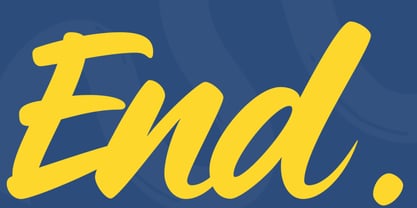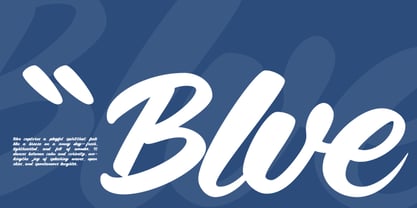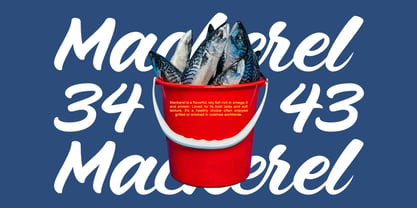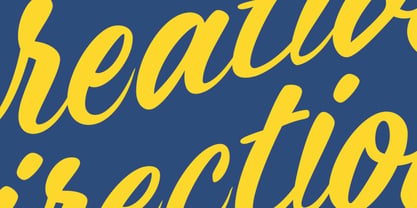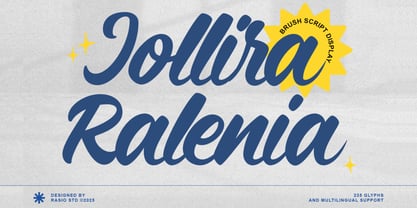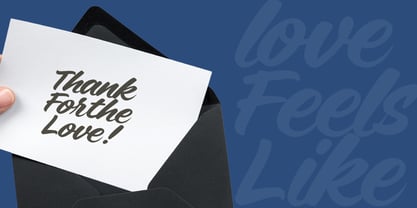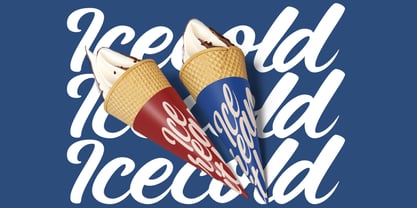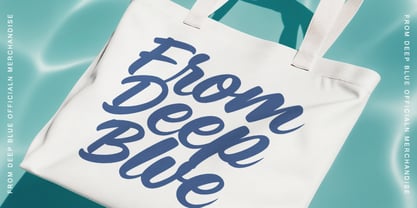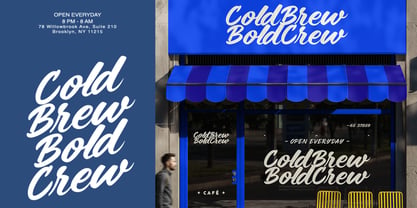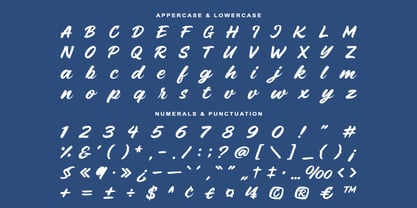
Jollira Ralenia
by Rasio Studio
The Jollira Ralenia Font Family was designed by Fajar Indra and published by Rasio Studio. Jollira Ralenia contains 1 styles. More about this family
Jollira Ralenia is a bold and lively brush script display font that captures the energy of hand-painted lettering with a modern twist. Each stroke flows with natural rhythm and confident motion, making it perfect for eye-catching headlines and expressive design work. The rounded edges and fluid connections give it a friendly yet professional personality. Designed with 235 glyphs and full multilingual support, Jollira Ralenia includes uppercase, lowercase, numerals, and punctuation, offering flexibility for both digital and print use. Its dynamic brush texture and smooth readability make it a great choice for branding, posters, apparel, and creative logotypes.
Designers: Fajar Indra
Foundry: Rasio Studio